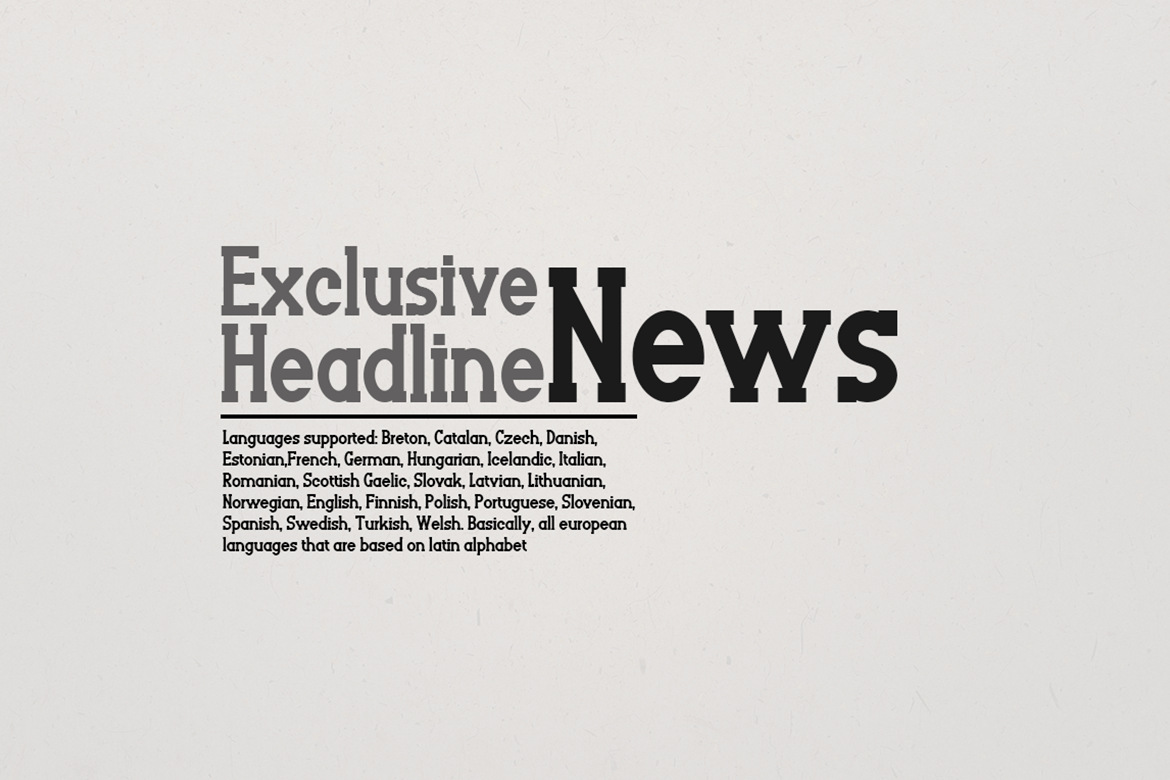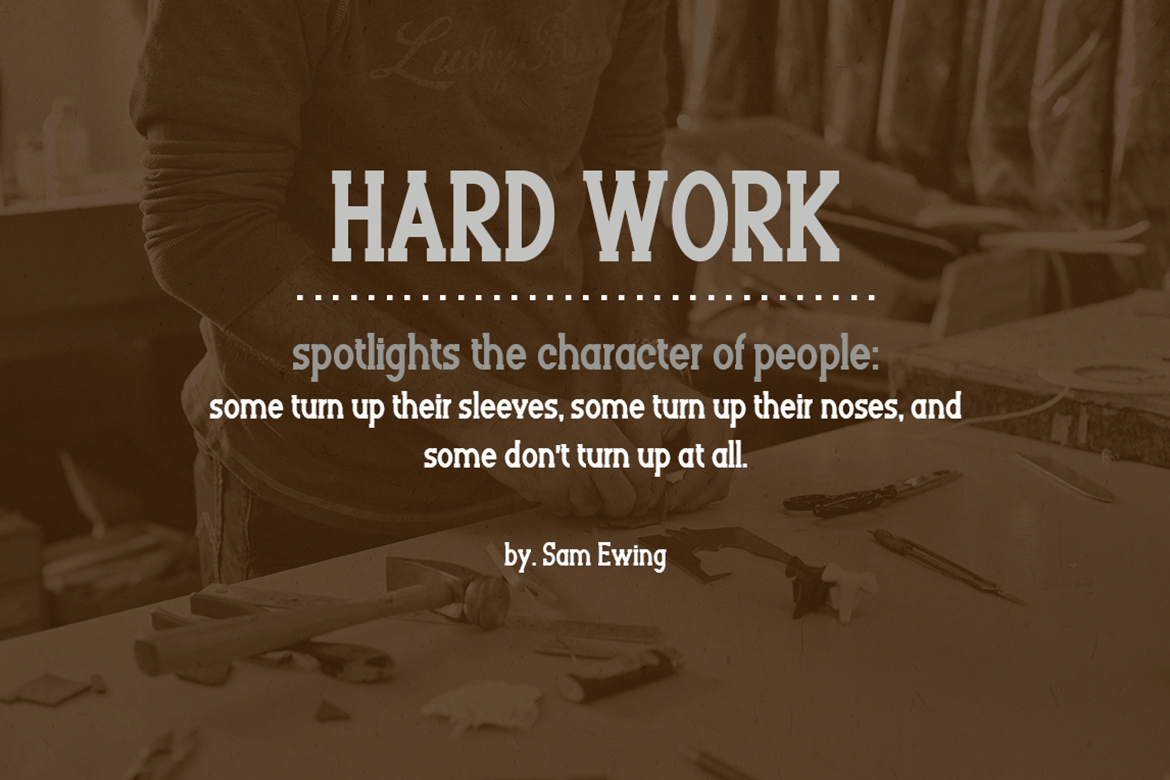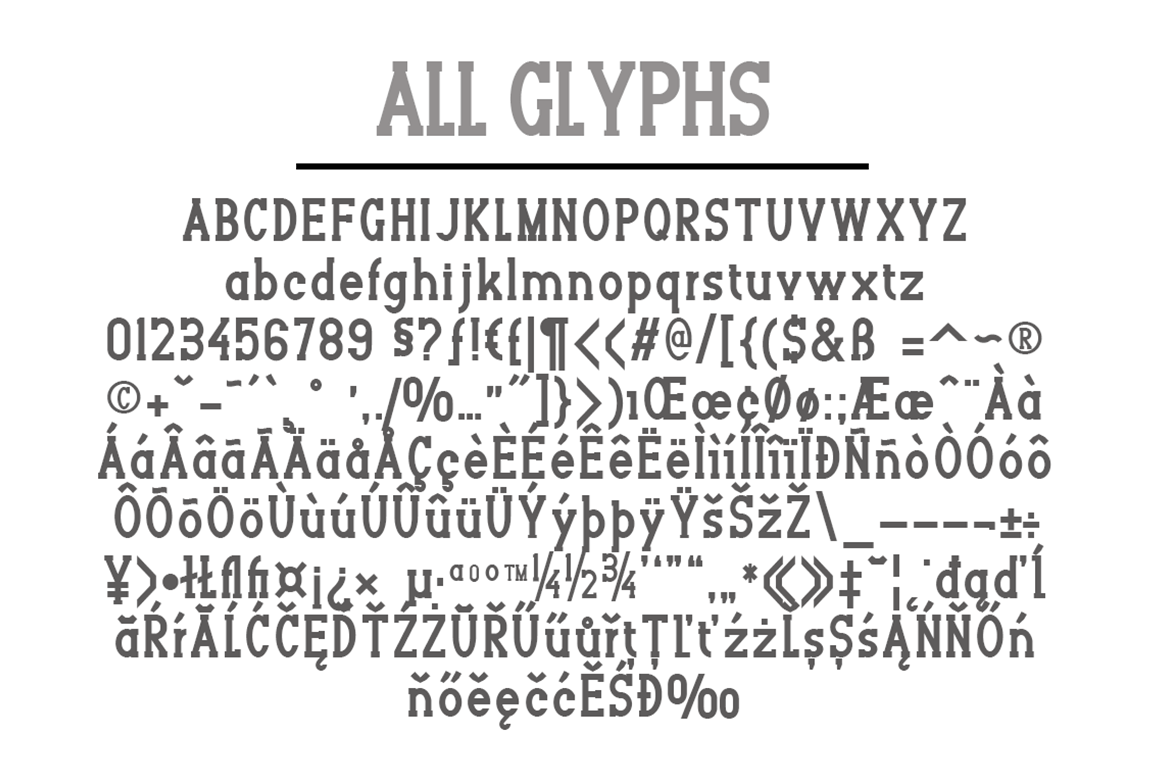
Berlian
Font Family by Groen Studio
Berlian is typography with a firm structure and very comfortable for the reader, also has a simple character. very suitable for official media such as banners, magazines, newspapers, books, and others.
Languages supported: Breton, Catalan, Czech, Danish, Estonian,French, German, Hungarian, Icelandic, Italian, Romanian, Scottish Gaelic, Slovak, Latvian, Lithuanian, Norwegian, English, Finnish, Polish, Portuguese, Slovenian, Spanish, Swedish, Turkish, Welsh. Basically, all european languages that are based on latin alphabet